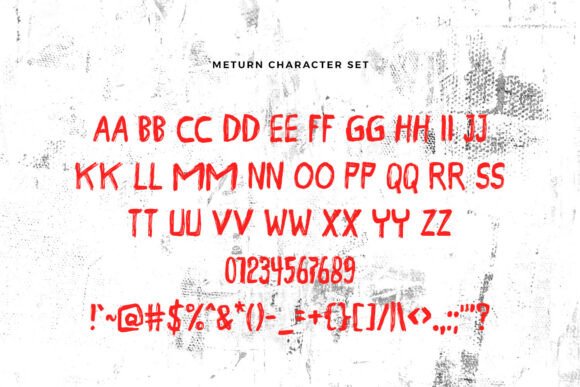
Introduction to Meturn Font Font
Fonts play a crucial role in design, and the Meturn Font font is a typeface that brings both character and versatility to any project. Whether you’re working on a branding project, a website, or a print design, the Meturn Font font offers a unique style that can elevate your work.
Meturn is a casual brush font designed with relaxed strokes and natural hand-painted flow.
Inspired by everyday handwriting, this font delivers a friendly and approachable feel while maintaining a modern brush character Its smooth curves and slightly rough texture create a balanced look that feels both effortless and expressive.
Key Features of Meturn Font Font
Why Choose Meturn Font Font?
The Meturn Font font is more than just a typeface – it’s a design tool that helps you communicate your message with style and clarity. Its unique character set and versatile design make it suitable for a wide range of applications, from elegant invitations to bold headlines.
With its carefully crafted letterforms and balanced proportions, the Meturn Font font ensures readability and visual appeal across all mediums.
What makes Meturn Font font special?
The Meturn Font font stands out with its unique design, exceptional readability, and versatility across various design applications.